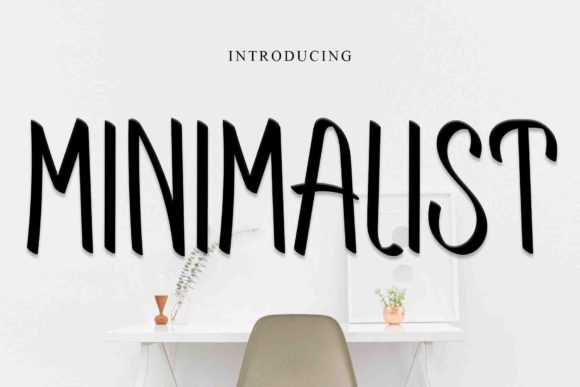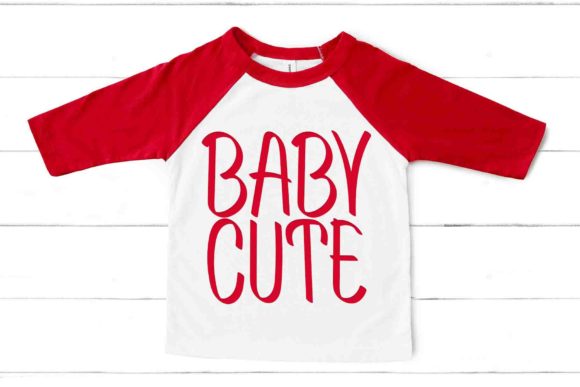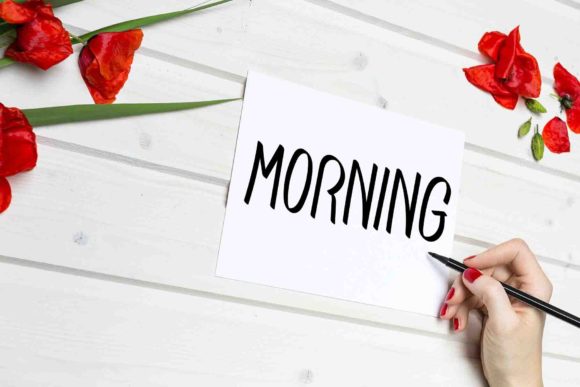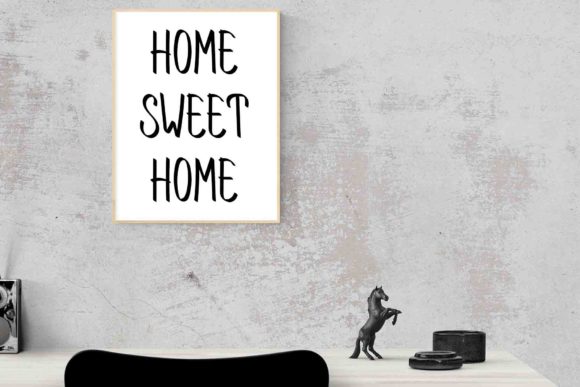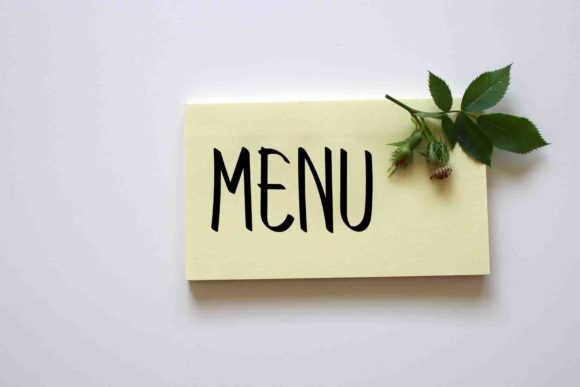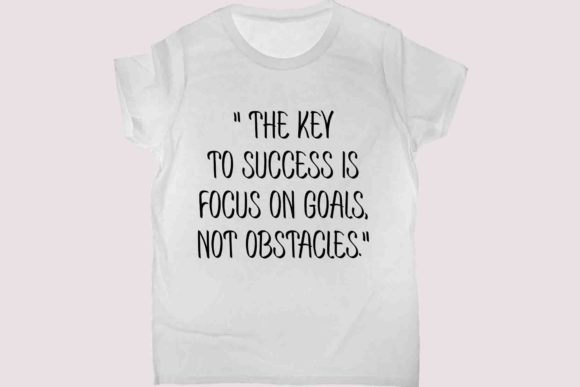
Minimalist Font
About Minimalist Font
Minimalist is a simple script font with a relaxed theme, featuring a lovely style. No matter the topic, this font will be an incredibly asset to your fonts’ library, as it has the potential to elevate any creation.